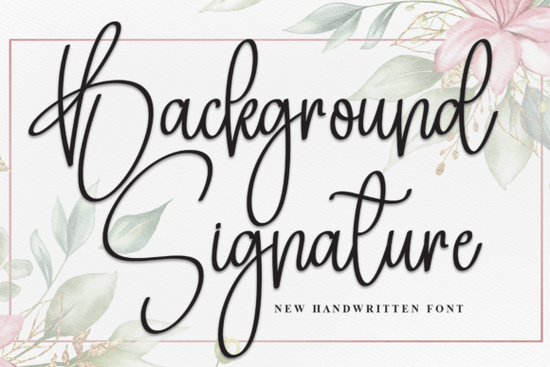
If you've been searching for a handwritten typeface that looks like real cursive penmanship, the Background Signature Font is worth a closer look. It's a flowing, elegant script font designed to mimic natural handwriting and it works beautifully across invitations, branding, logos, and social media graphics. Whether you're a print-on-demand seller, a small business owner, or someone who just loves pretty typography, this font has a lot going for it.
What Makes This Handwritten Font Stand Out?
There are thousands of script fonts out there, so what makes this one different? The answer is in the details. Background Signature has a natural, organic flow that doesn't look stiff or overly digitized. Each letter connects smoothly, the way real cursive writing does when you use a good pen on quality paper.
It's not trying too hard to be fancy. Instead, it strikes a balance between casual and refined. That makes it versatile you can use it for a wedding invitation and it looks romantic, or put it on a coffee mug and it feels cozy and personal.
Who Is This Font Best For?
This font works well for a wide range of creative projects. Here's a quick look at who tends to benefit the most:
- Print-on-demand sellers Great for mugs, tote bags, T-shirts, and wall art that needs a personal, hand-lettered feel.
- Small business owners Ideal for logos, packaging, and brand materials that want to feel approachable and warm.
- Event planners and designers Perfect for wedding invitations, save-the-dates, and thank-you cards.
- Social media creators Adds a stylish, handwritten look to quotes, stories, and promotional graphics.
- Crafters and hobbyists Works great in Cricut and Silhouette projects, scrapbooking, and DIY labels.
How Does It Compare to Other Script Fonts?
It depends on the mood you're going for. If you want something bolder and more playful, a font like rounded and thick script styles might be a better fit. Those are fun for kids' products or casual branding.
On the other hand, if your project calls for something more classic and vintage, you might want to explore vintage-style handmade fonts. They have that old-world charm that works beautifully for rustic or retro designs.
For designers who prefer something clean and understated, a minimalist signature style could be the better choice. These fonts keep things neat while still feeling personal.
And if you're working on a book cover, chapter title, or literary project, you might want to check out elegant book signature fonts they're crafted with publishing in mind.
Background Signature sits right in the middle of all these options. It's stylish without being over-the-top, personal without being messy. That's exactly why so many creators keep coming back to it.
What Projects Pair Well With This Font?
Here are some specific ideas that work especially well with Background Signature:
- Wedding stationery suites Use it for names and headings, paired with a simple sans-serif for body text.
- Social media quote posts It makes text-based content look polished and shareable.
- Logo design for small brands Especially bakeries, boutiques, photographers, and lifestyle brands.
- Greeting cards Birthday cards, holiday cards, thank-you notes this font adds warmth to all of them.
- Wall art prints Inspirational quotes or custom name prints look beautiful in this style.
- Product labels and packaging Adds a handmade, artisan feel to your branding.
If you're pairing it with other fonts, try matching it with a clean sans-serif like Montserrat or Lato. The contrast between a flowing script and a simple geometric font creates a nice visual balance.